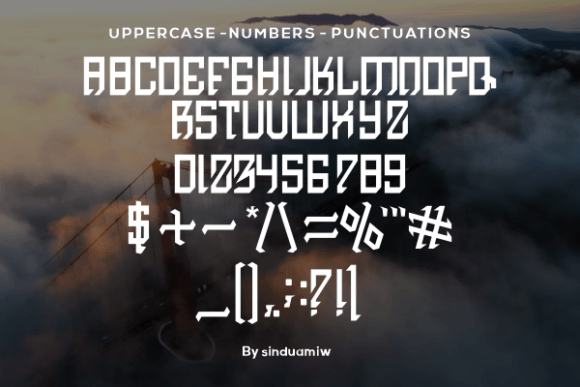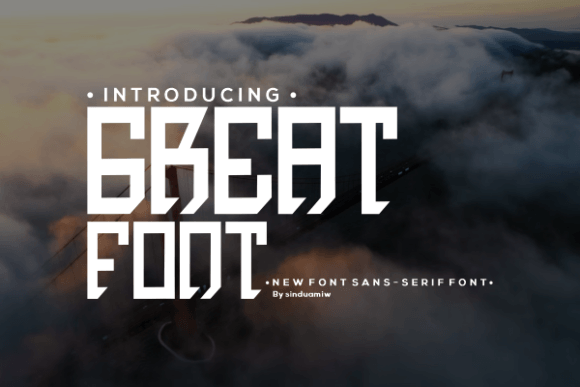
Introduction to Serdadu Font
Have you ever been working on a creative project and suddenly, the right font just clicks? That’s exactly what happened to us when we stumbled upon the Serdadu Font. Its unique blend of modernity and futurism immediately caught our attention, making it the perfect addition to any design.
| 👤 Author | sinduamiw |
As designers, we know how valuable it is to have high-quality design resources at our fingertips. The Serdadu Font is one such treasure, offering a sleek and futuristic aesthetic that’s perfect for creating eye-catching logos, branding, and quotes. With its transparent background, this font is a dream to work with, allowing you to focus on bringing your creative vision to life.
Key Features of Serdadu Font
- Unique and modern font style, ideal for various design applications.
- Designed to provide a bold and eye-catching look for any creative project.
Honest Review: Serdadu Font
As a designer, I’m always on the lookout for high-quality design resources to enhance my creative projects. Recently, I stumbled upon the Serdadu Font, and I must say it’s been a great addition to my design arsenal.
- ✨ High-quality typography: The Serdadu Font boasts a clean and modern design that’s perfect for a variety of creative projects.
- ⚠️ Limited font styles: While the font itself is high-quality, there are only a few styles to choose from, which may limit its versatility.
- ⚠️ Not suitable for complex text: Due to its modern design, the Serdadu Font may not be the best choice for complex text or body copy.
Overall, I’m impressed with the Serdadu Font. Its high-quality typography, free download, and transparent background make it a great addition to any designer’s toolkit. While it may have some limitations, I believe it’s a valuable resource for any creative project.
Serdadu Font is suitable for various creative projects, including:
- Logo designs
- Posters